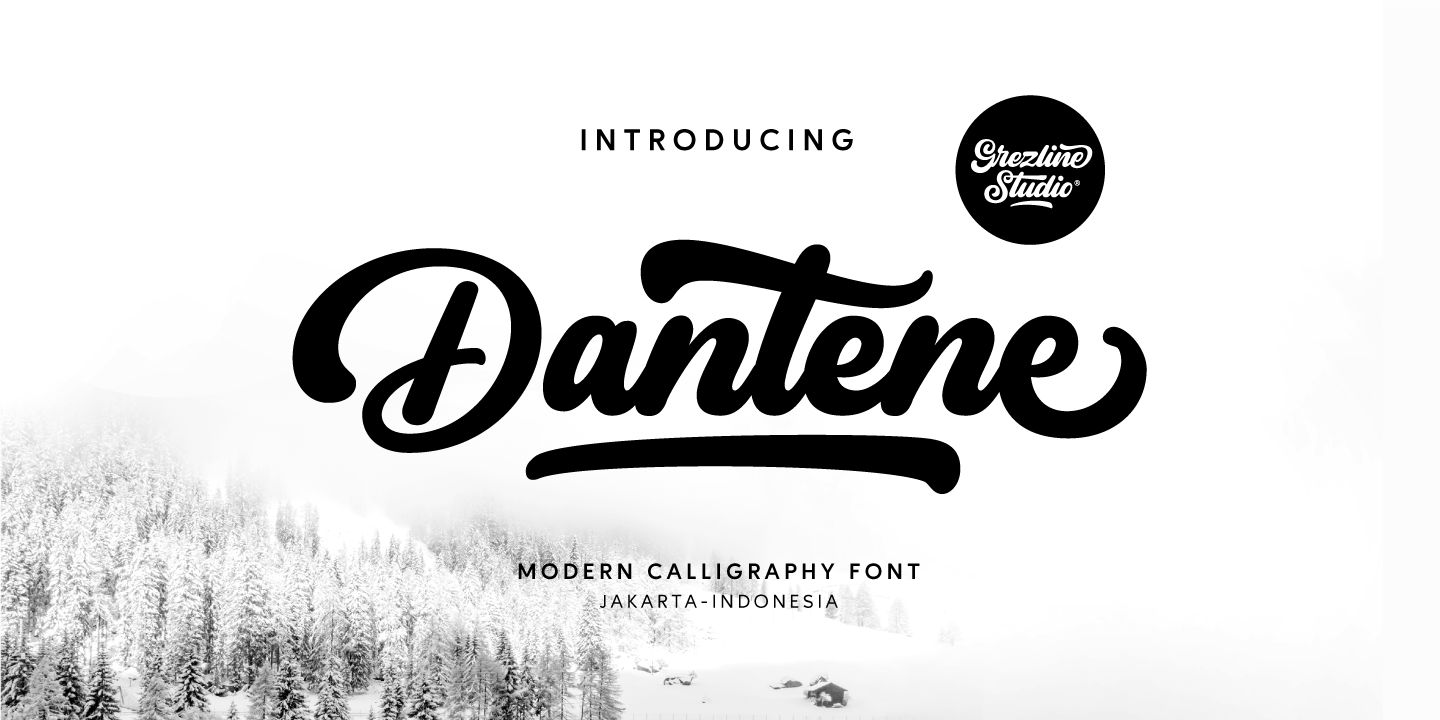
Dantene Font is a beautifully crafted script typeface that effortlessly blends elegance with a modern, artistic flair. Its graceful, flowing lines and sophisticated character make it an exceptional choice for projects aiming to convey luxury, intimacy, and a personal touch. Imagine it perfect for elegant wedding invitations, high-end fashion branding, gourmet food packaging, heartfelt greeting cards, sophisticated social media graphics, and unique custom merchandise. This font excels in environments where a sense of bespoke quality, romantic charm, and refined artistry are paramount. It’s particularly effective for conveying sincerity and a memorable aesthetic, ensuring your message not only stands out but also resonates with an irresistible grace.
What makes Dantene Font truly exciting is its ability to infuse designs with a sense of handcrafted beauty and emotional resonance. It often features delicate swashes, ligatures, and stylistic alternatives that mimic authentic calligraphy, giving each character a unique, almost bespoke feel. This font isn't just about displaying text; it's about telling a story with elegance and warmth, injecting your designs with a sense of personal connection and undeniable charm. It has a powerful ability to feel both incredibly luxurious and surprisingly versatile, making it an ideal tool for designers who want their work to convey sophistication, sentiment, and a truly memorable visual impact. Dantene Font empowers brands and creatives to project an image that is refined, authentic, and full of heartfelt artistry.
The Dantene Font family typically offers a range of options to enhance its versatility and expressive capabilities. You'll often find it available in a strong, elegant regular weight, with some versions including stylistic alternatives for certain characters, ligatures, or a set of swashes that further emphasize its handcrafted appeal and allow for more customized typographic compositions. The comprehensive character set generally covers standard Latin characters, numbers, and a selection of punctuation marks, ensuring that Dantene Font Free Download is suitable for a wide variety of creative and commercial applications. Its distinctive and memorable presence ensures that any project featuring Dantene Font will leave a strong, lasting impression.